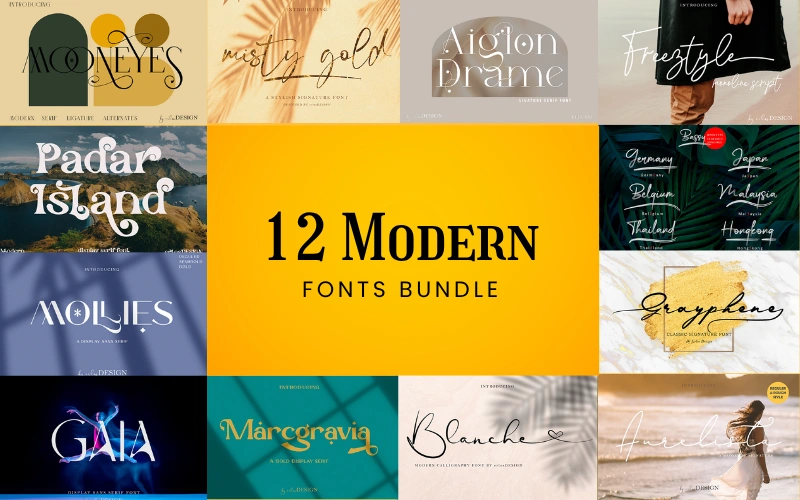
Highlights
- Includes Sans‑Serif, Display and Script styles
- Font styles: Sans‑Serif, Display, Script
- Types: Brush, Handwritten, Retro, Modern
- Special characters: Ligatures, Swashes, Alternates, Glyphs
Preview — 12 Modern Fonts
- Aiglon Drame — Modern Ligature Serif
- Aurelista — Monoline Signature
- Bassy — Brush Font
- Blanche — Signature Font
- Freestyle — Monoline Script
- Gaia — Display Sans Serif
- Grayphene — Signature Font
- Marcgravia — Modern Serif
- Misty Gold — Signature Font
- Mollies — Sans Serif Fonts
- Mooneyes — Modern Serif
- Padar Island — Display Serif Font